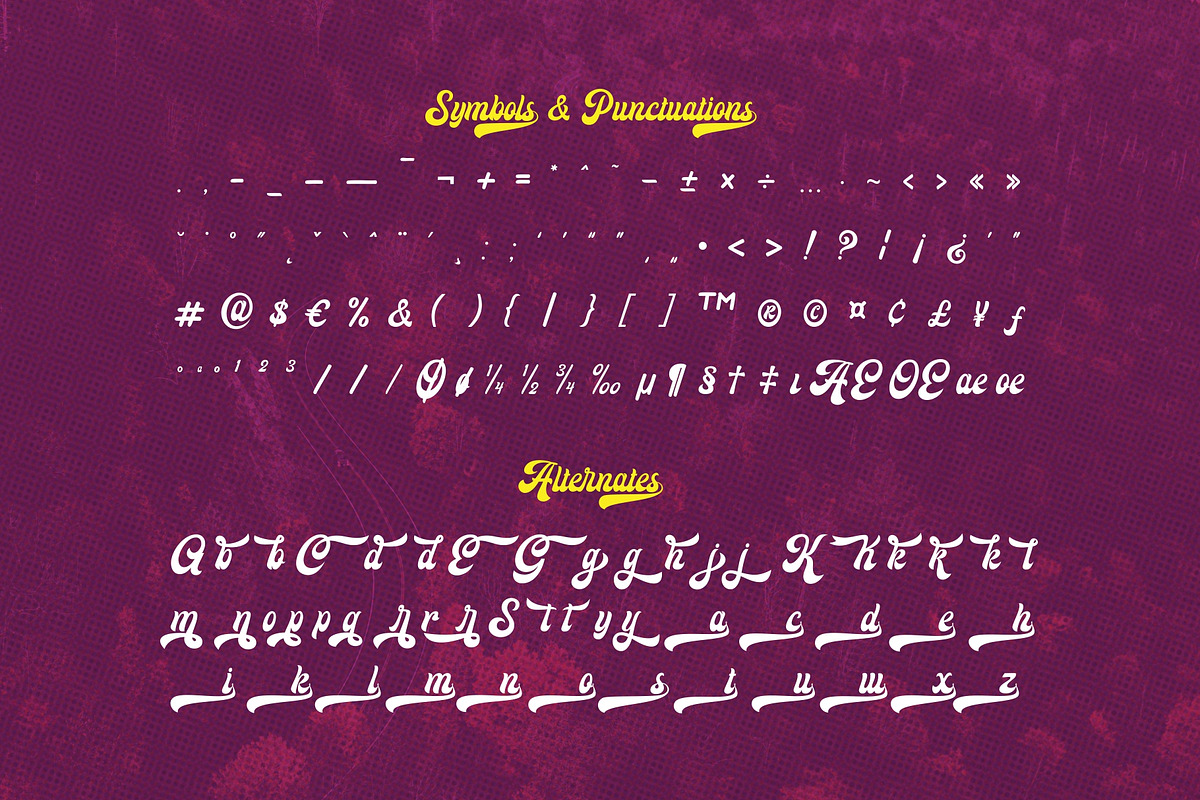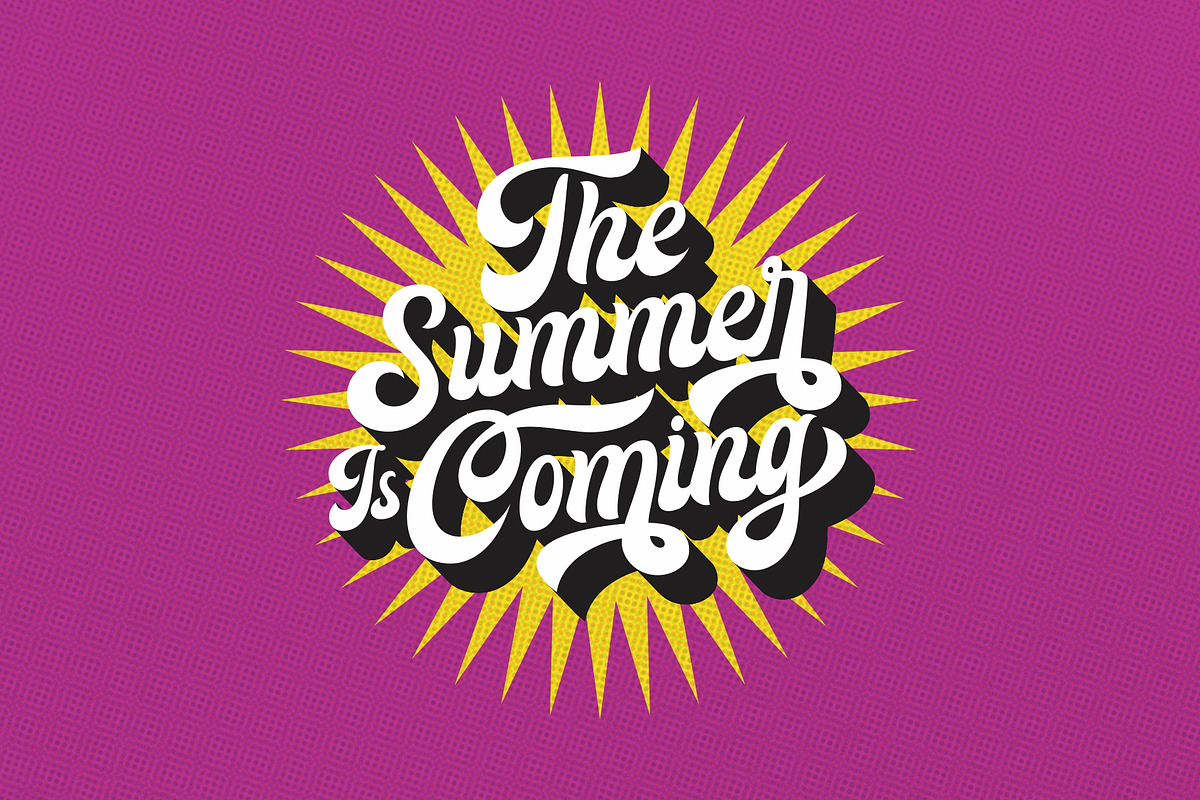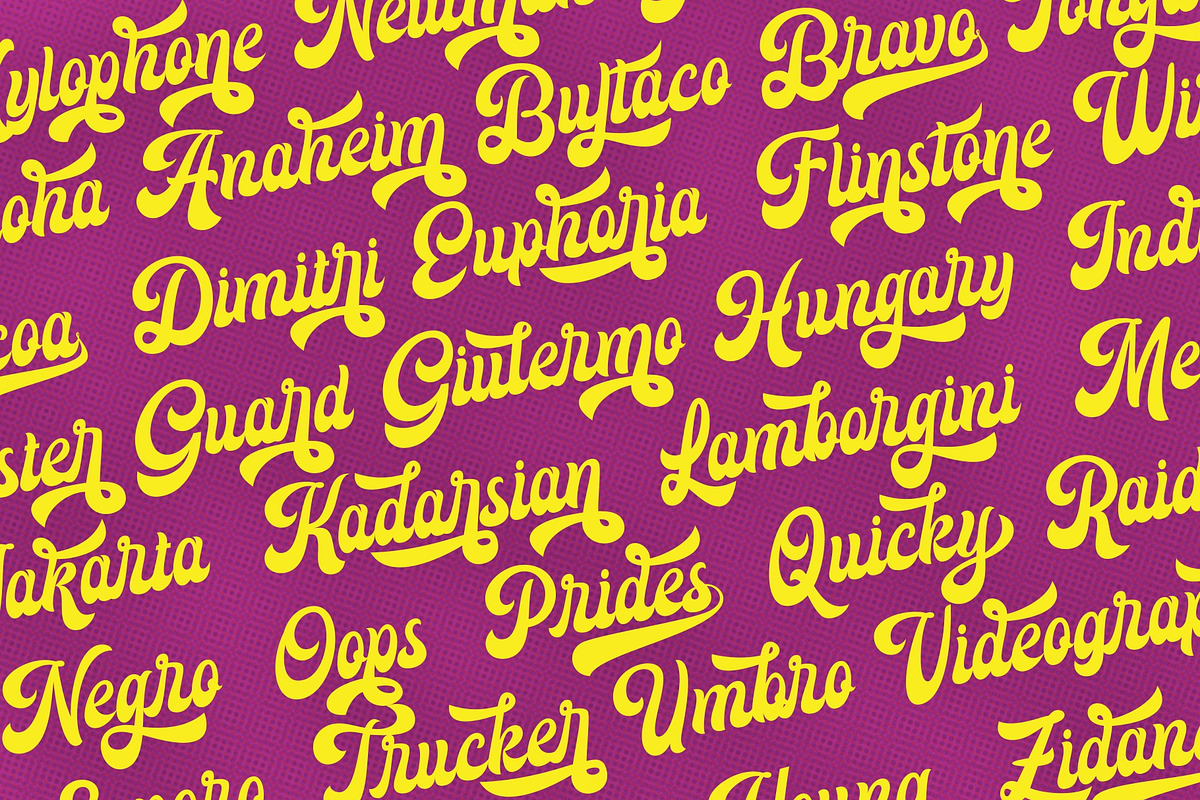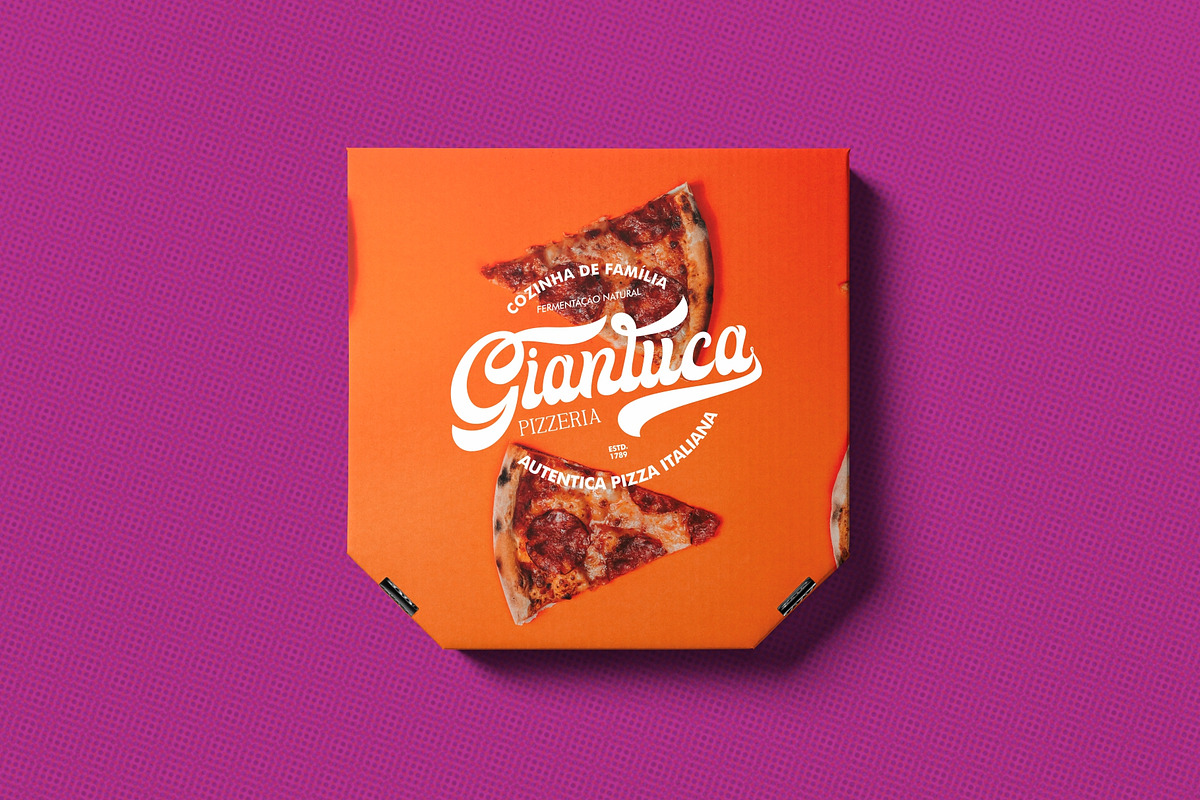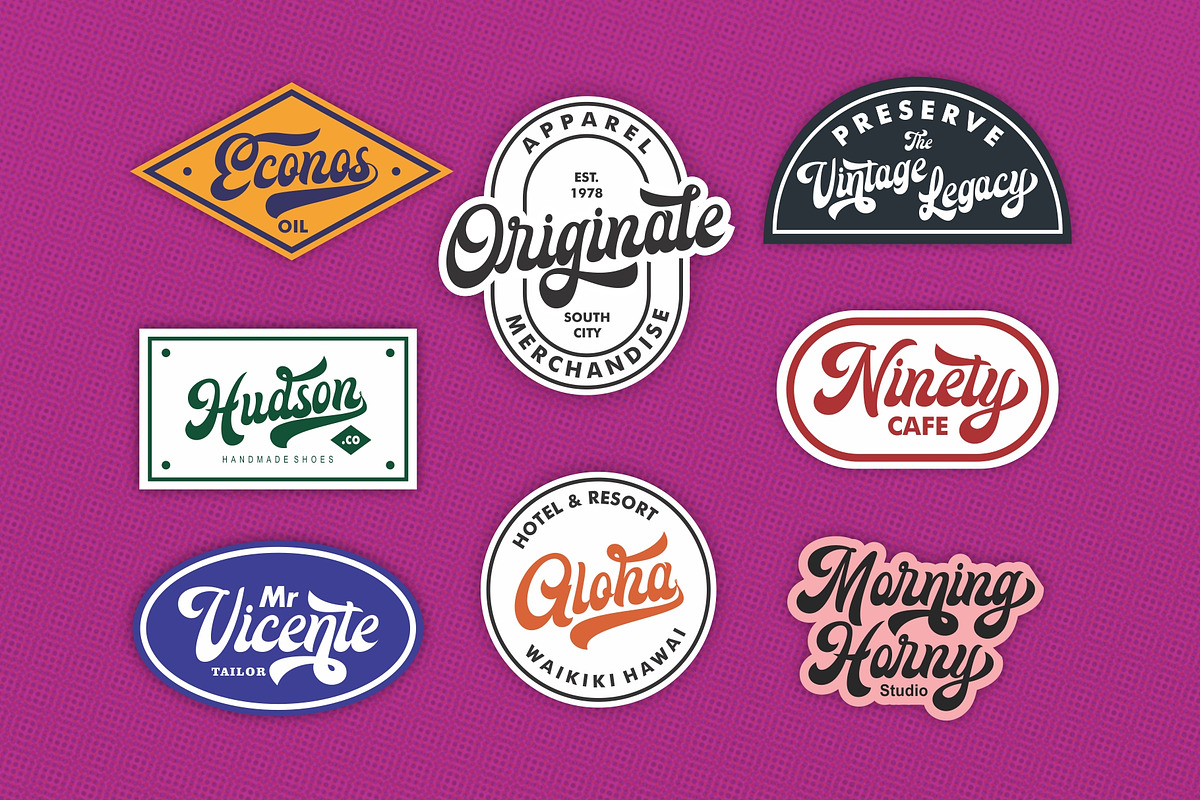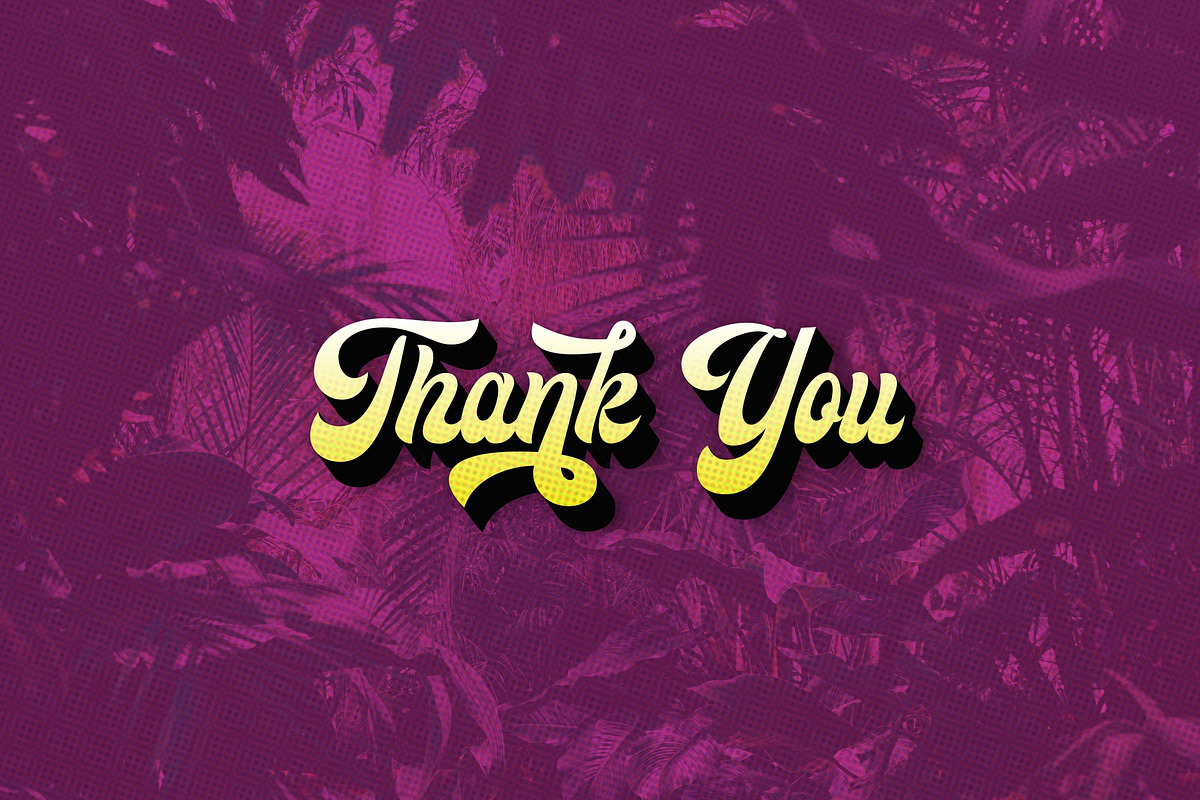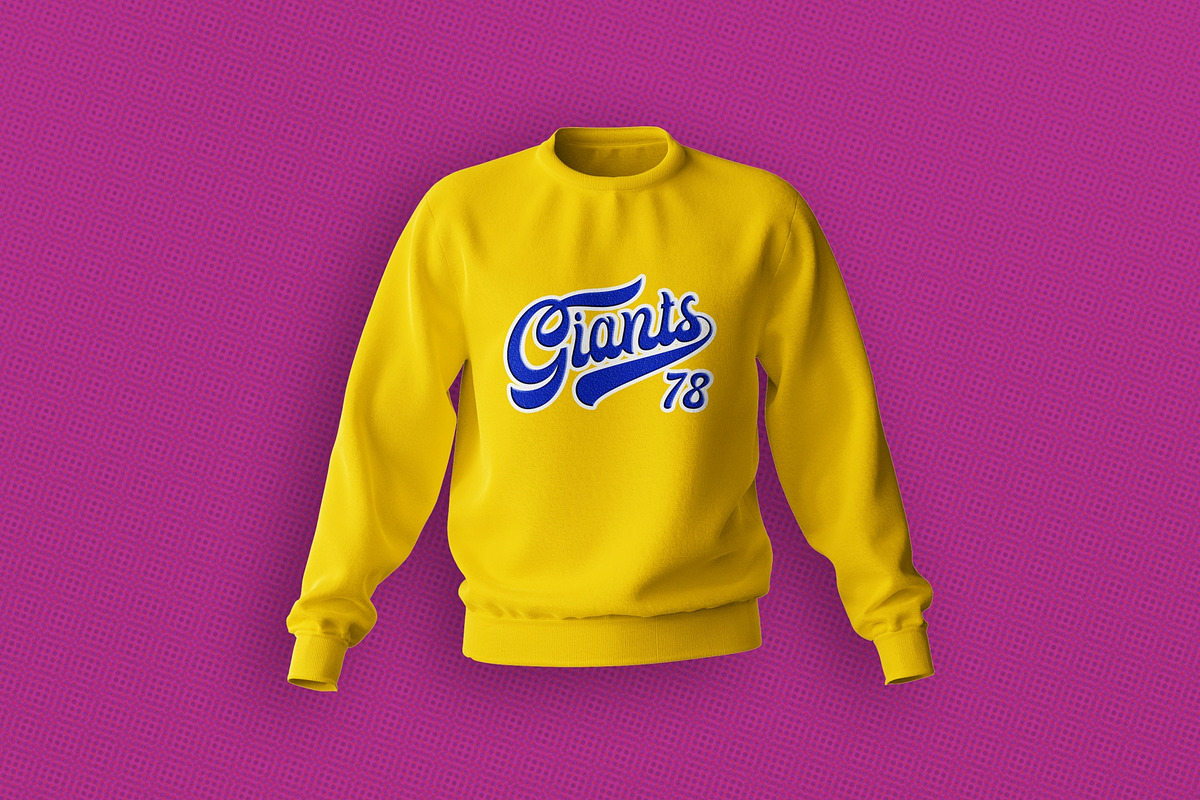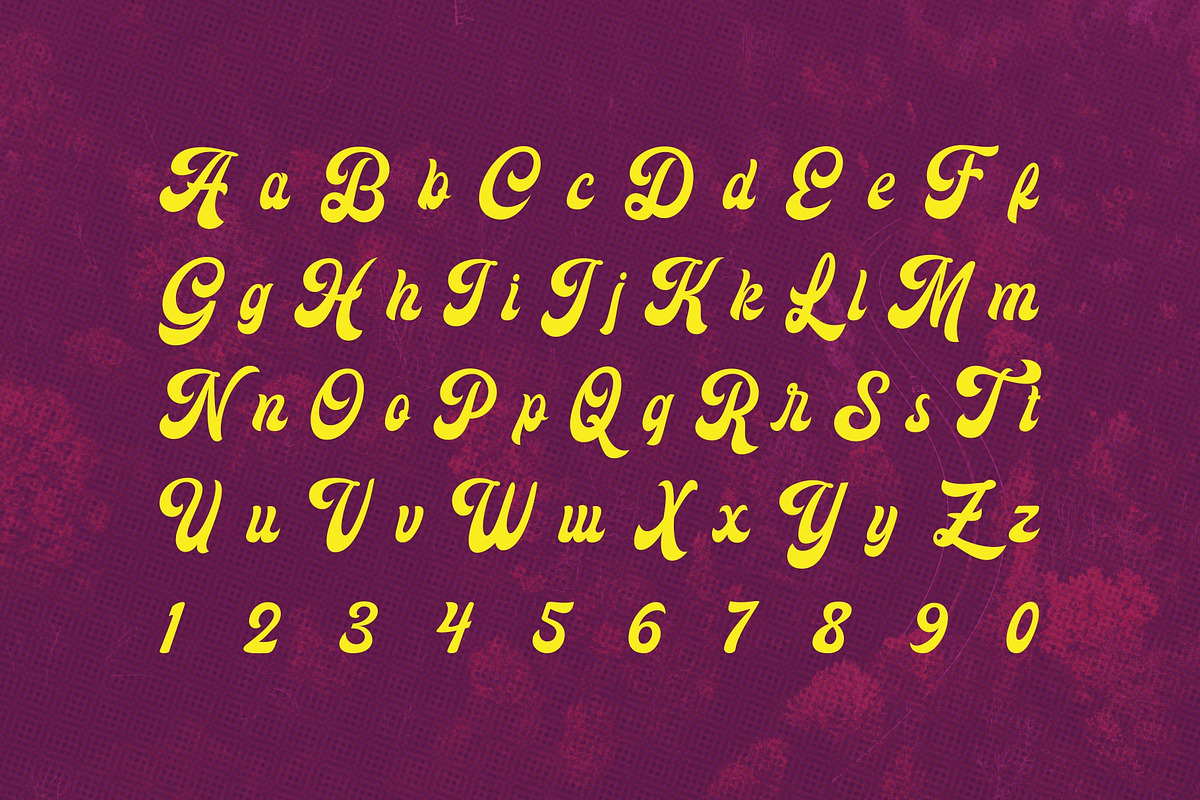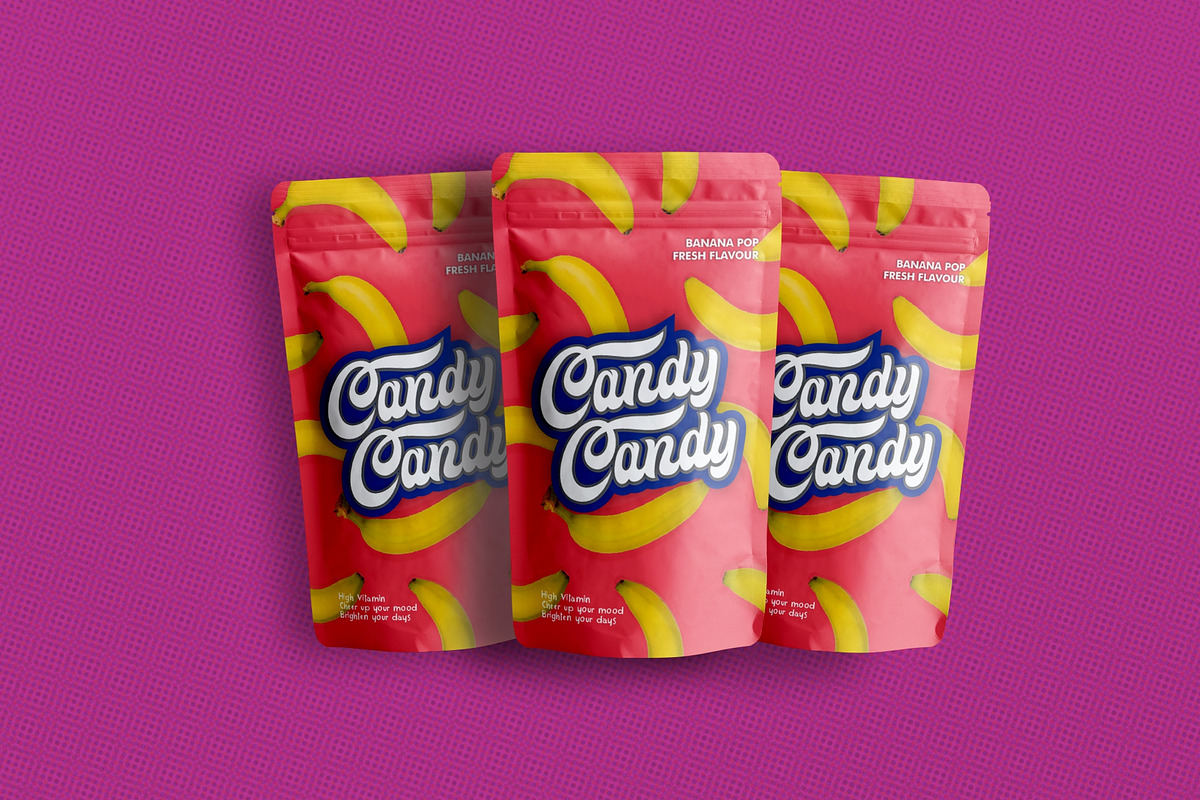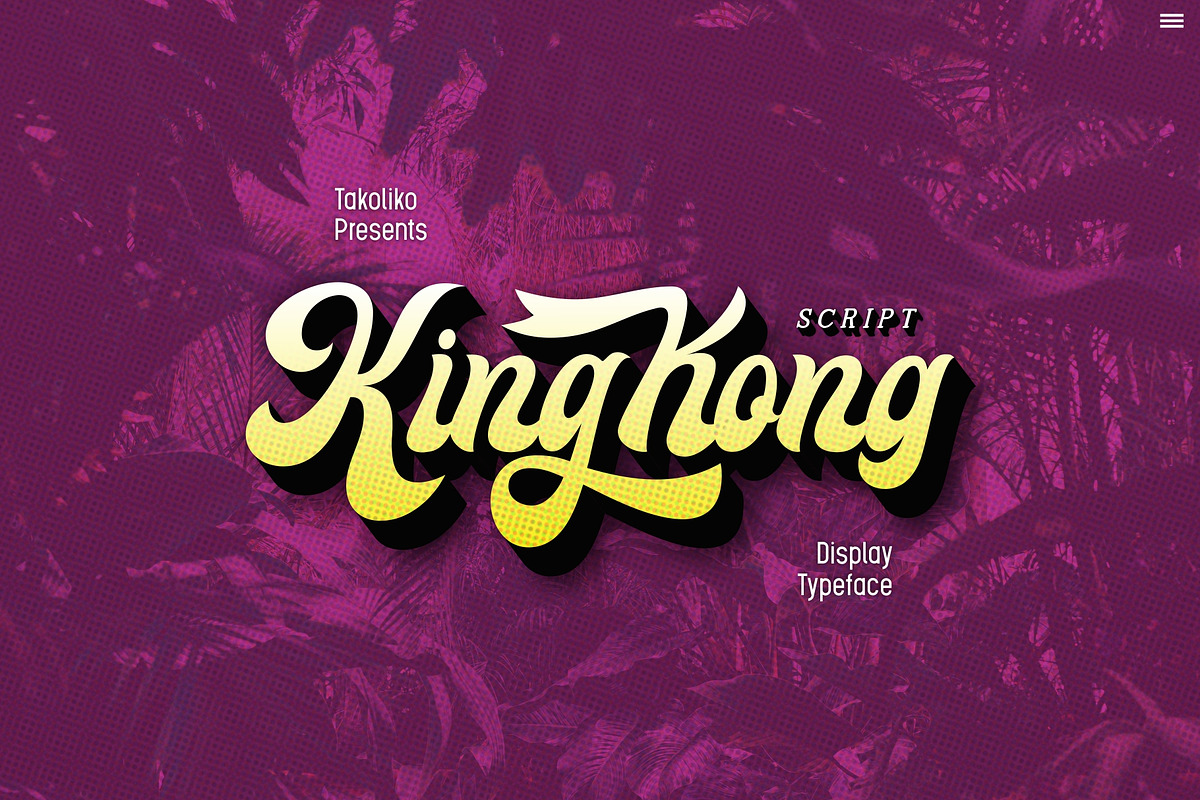
KingKong Script
Introducing our Script Display Typeface "Kingkong"
Kingkong is fat, bulky, fun and happy Script Typeface. Designed for a project that bring a happines, love, passion and an easy going atmosphere. It also have a little touch of vintage vibes from the script font types. You can add Kingkong script to your logo or any kind of lettering project that have a handmade touch. Kingkong script came with a multilingual support and various alternates. You can change the way kingkong script flow on your words by acces the stylistic alternates. So add Kingkong script to your design and make it different from others. Spread some fun and enjoy our product.